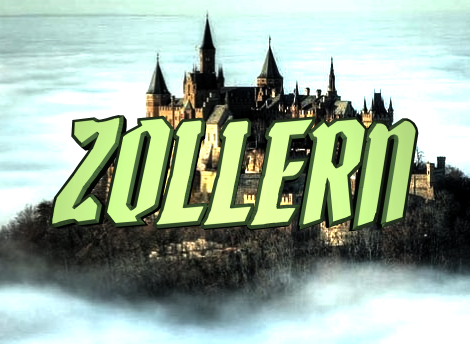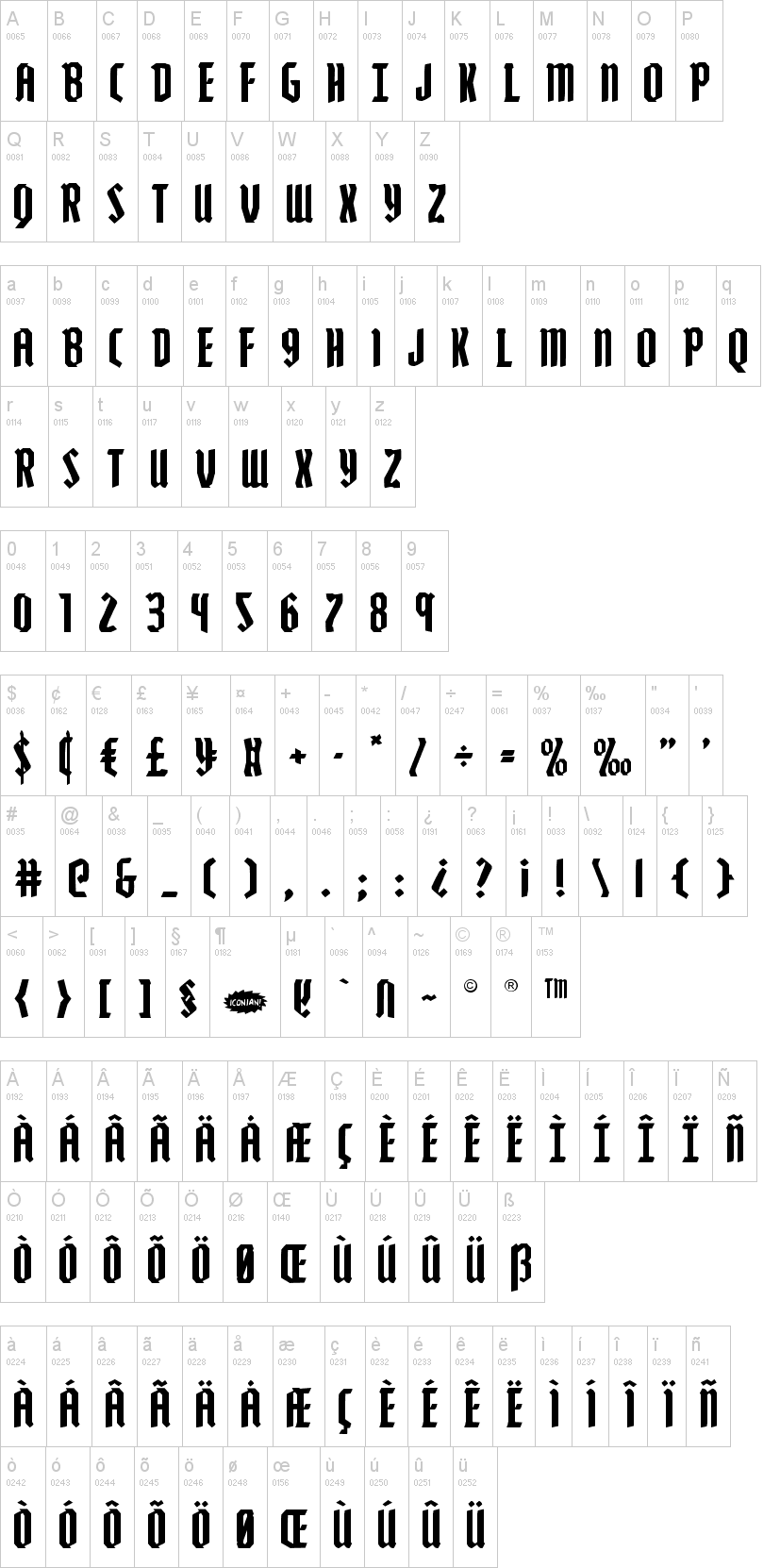
zollernital.ttfzollernleft.ttfzollernrotal.ttfzollernout.ttfzollernoutital.ttfzollern3d.ttfzollern3dital.ttfzollerncond.ttfzollerncondital.ttfzollernexpand.ttfzollernexpandital.ttfzollernextraexpand.ttfzollernextraexpandital.ttfNote of the authorA Gothic inspired typeface. Full Latin character set. For information regarding commercial usage, please visit www.iconian.com/commercial.html